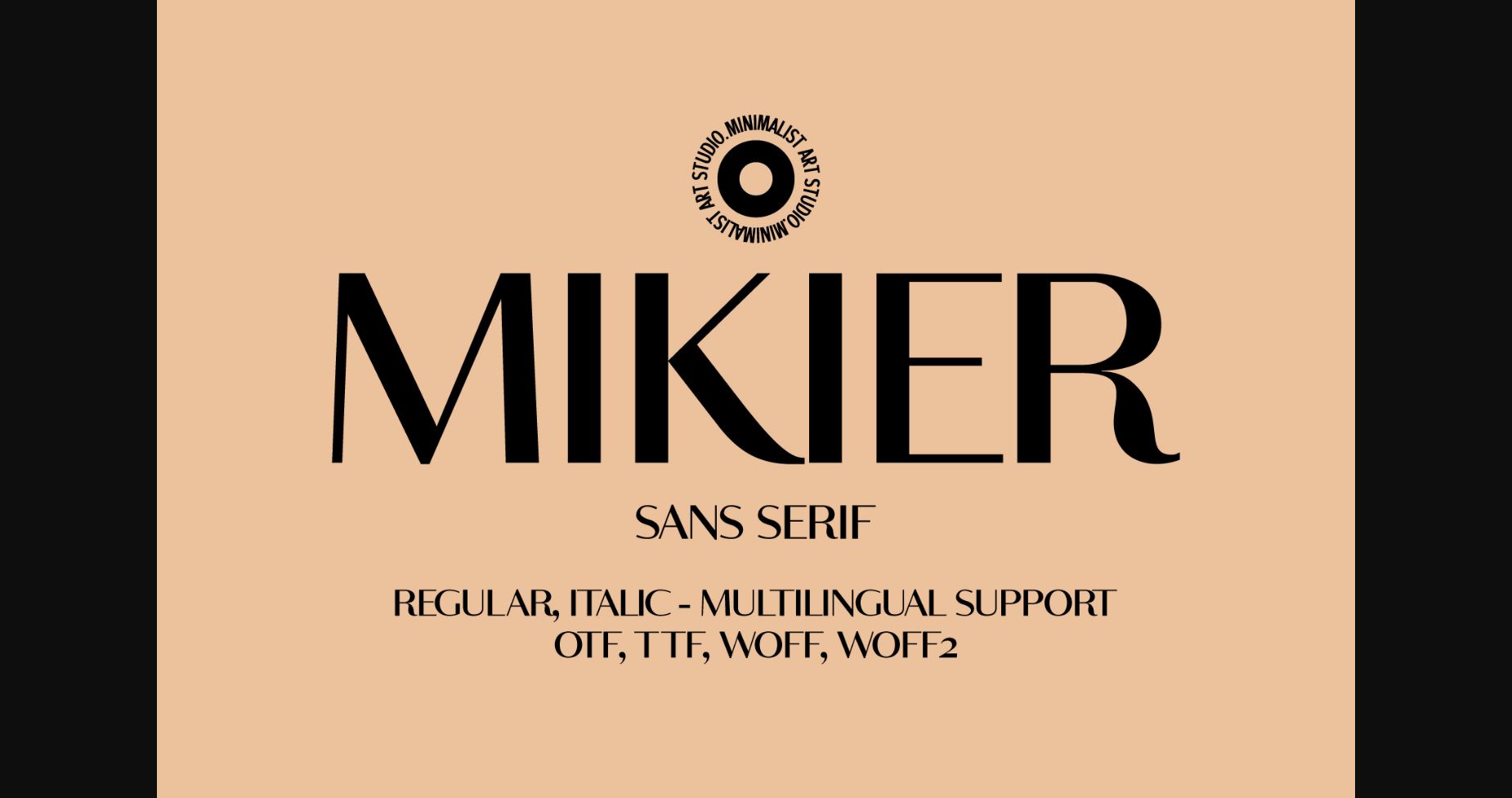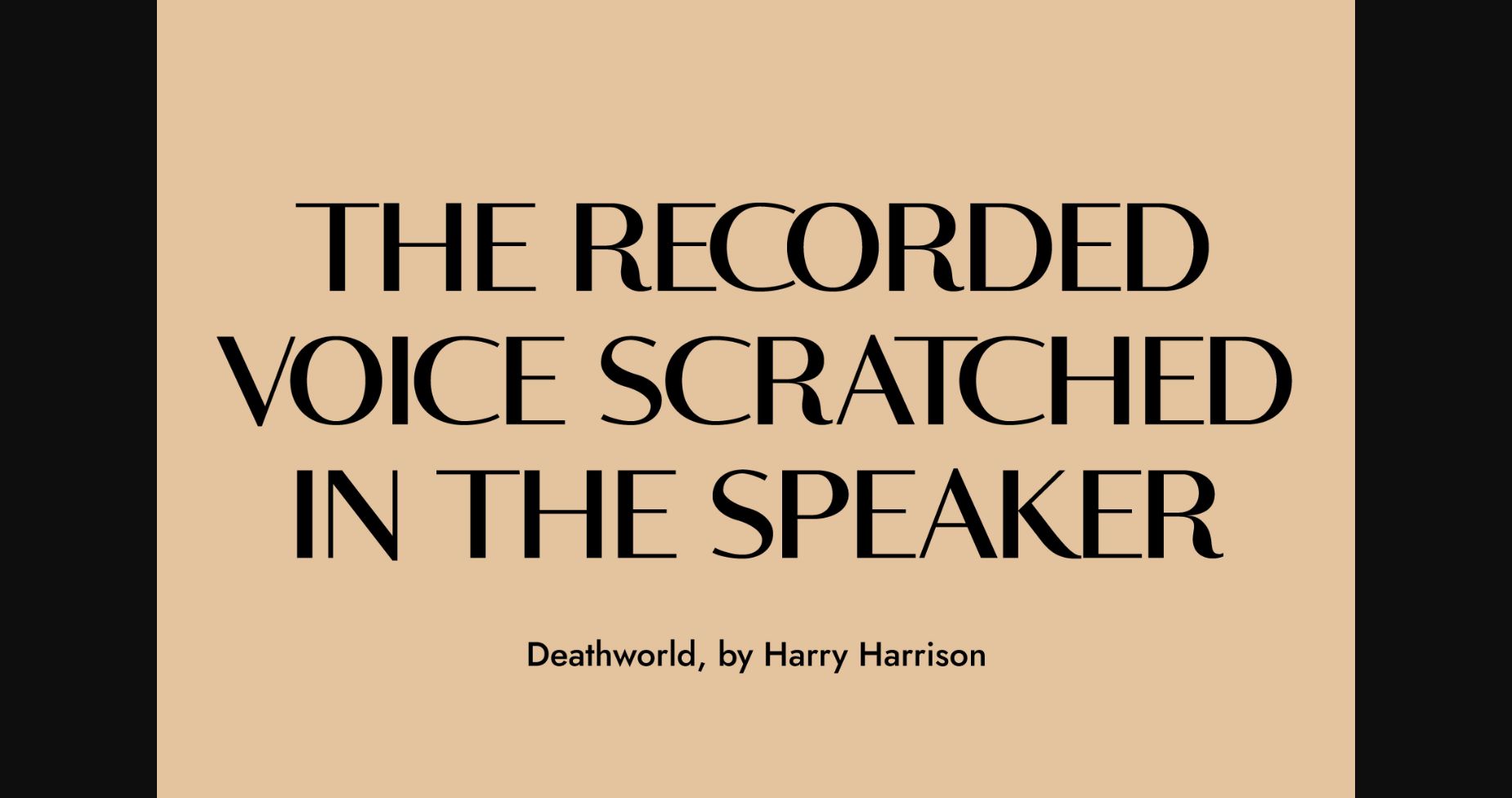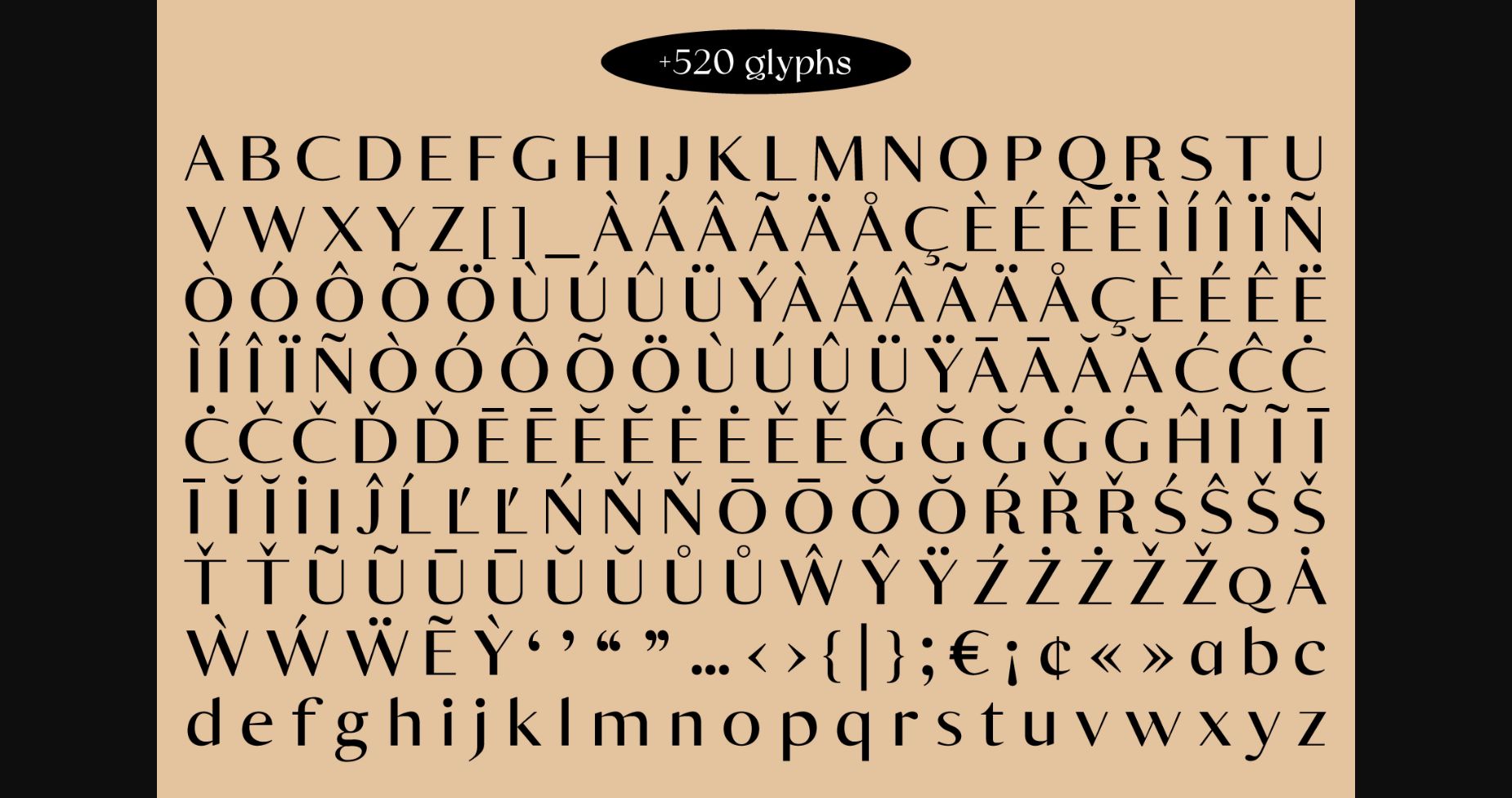
About Mikier Font
Introducing Mikier, the chic and elegant sans serif font that adds a touch of sophistication to any design. With over 520 glyphs and multi-lingual support, this delicate typeface offers endless possibilities for your projects. Its clean lines and balanced proportions make it perfect for logos, headlines, and body text alike. Mikier is versatile and timeless, allowing you to create designs that are both modern and classic. Upgrade your typography game with Mikier and experience the power of refined simplicity.